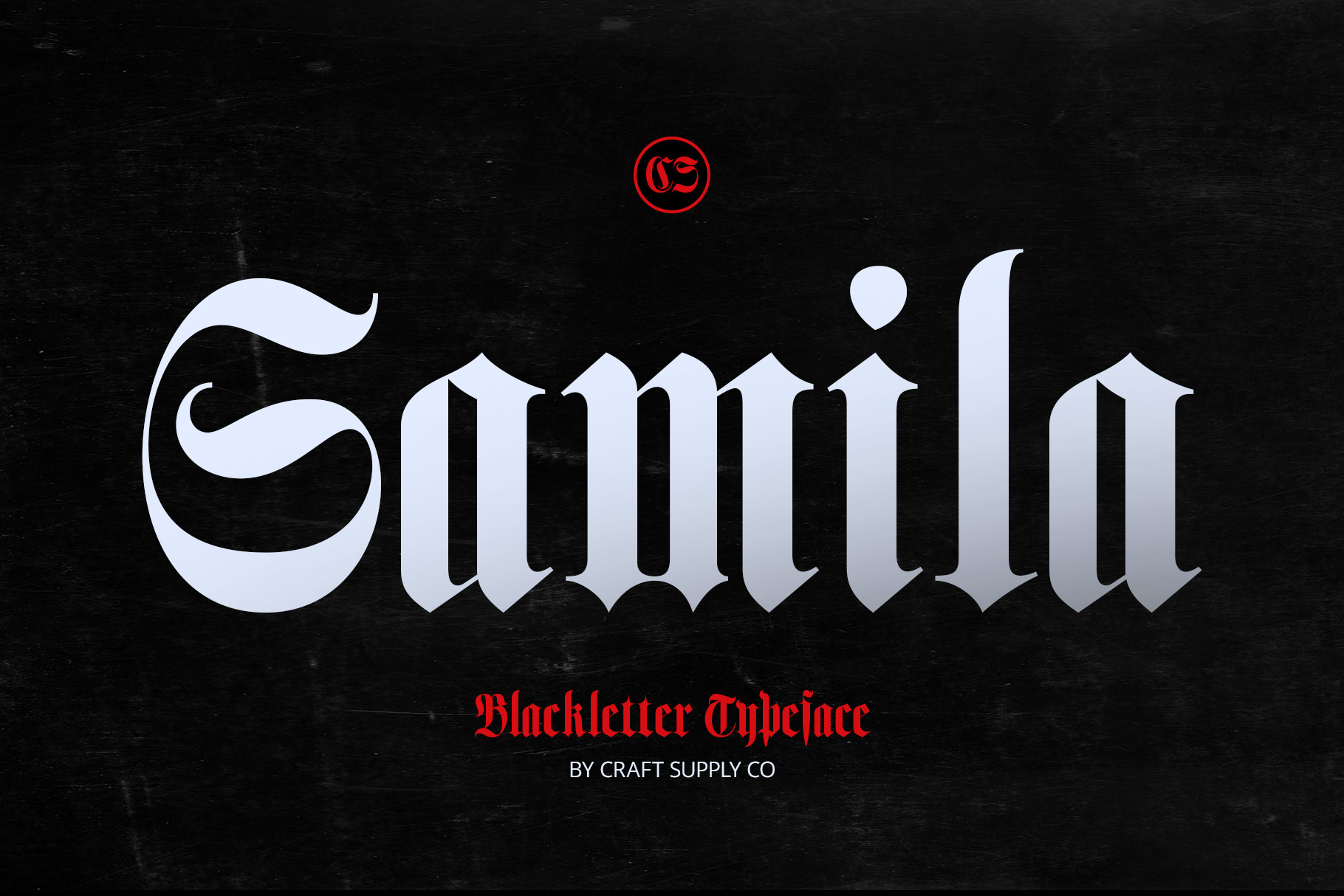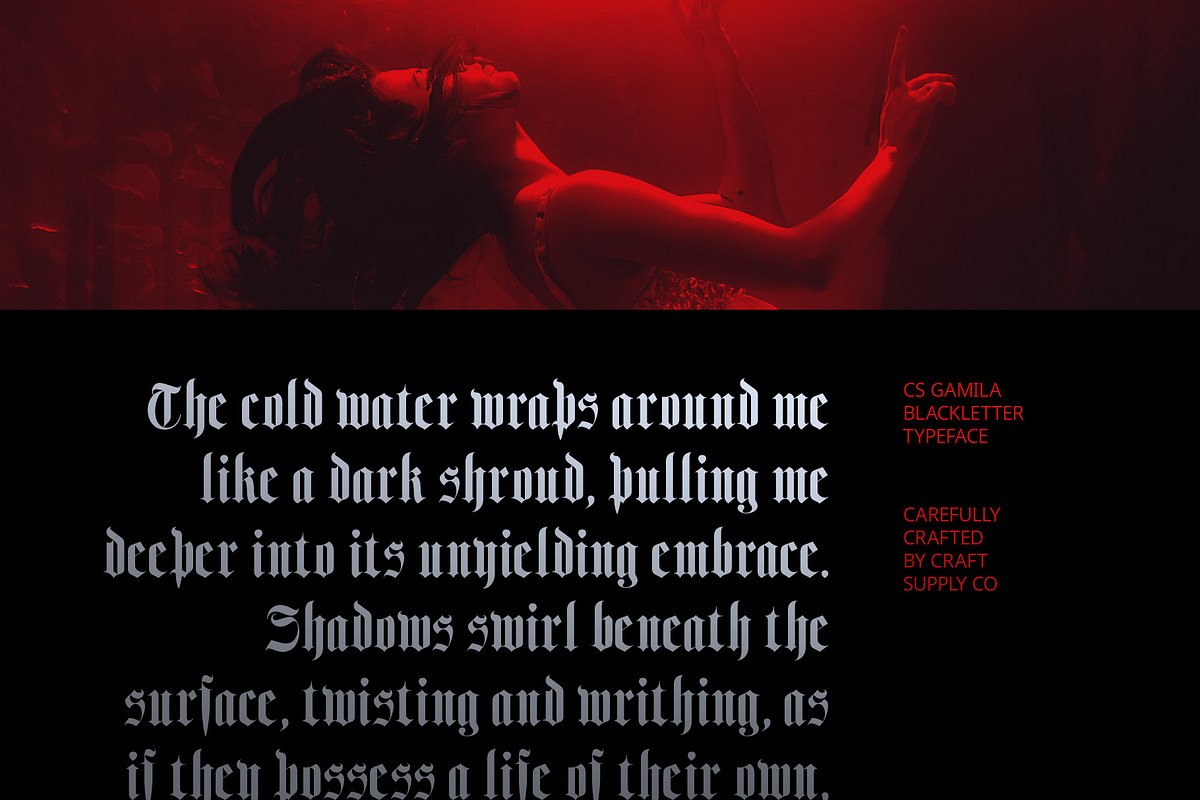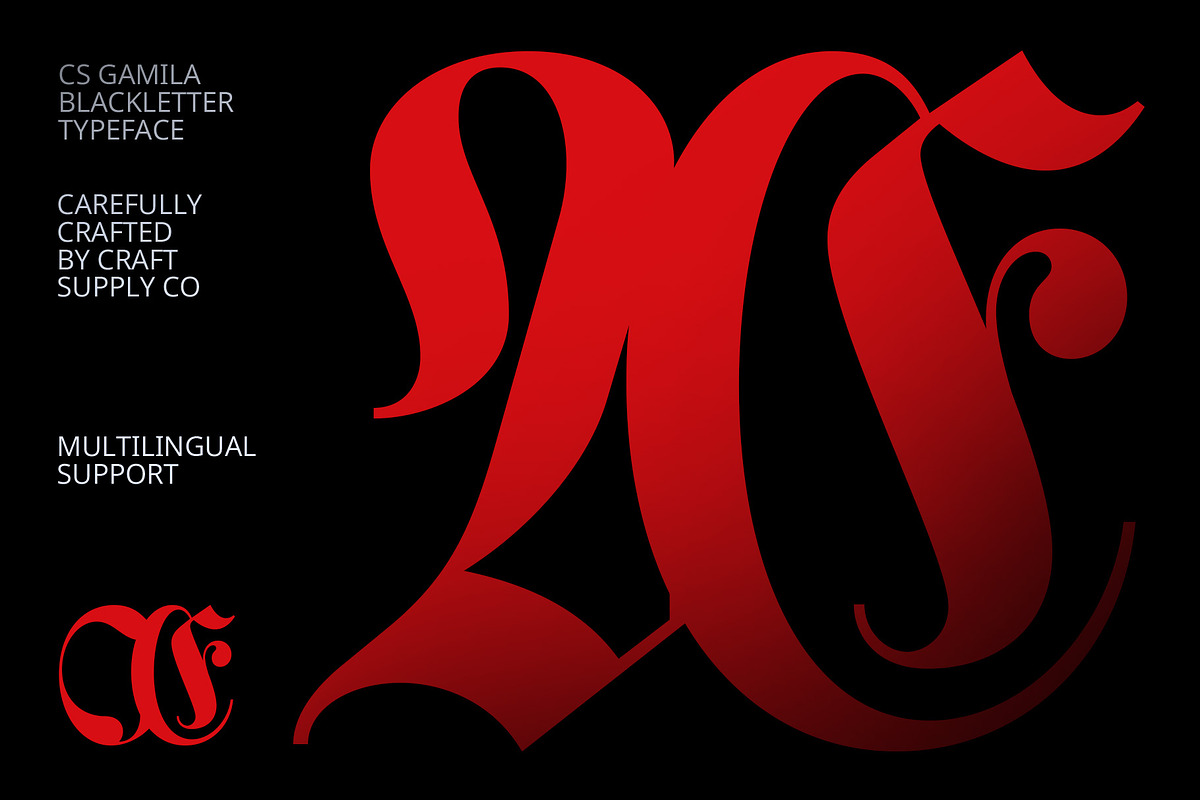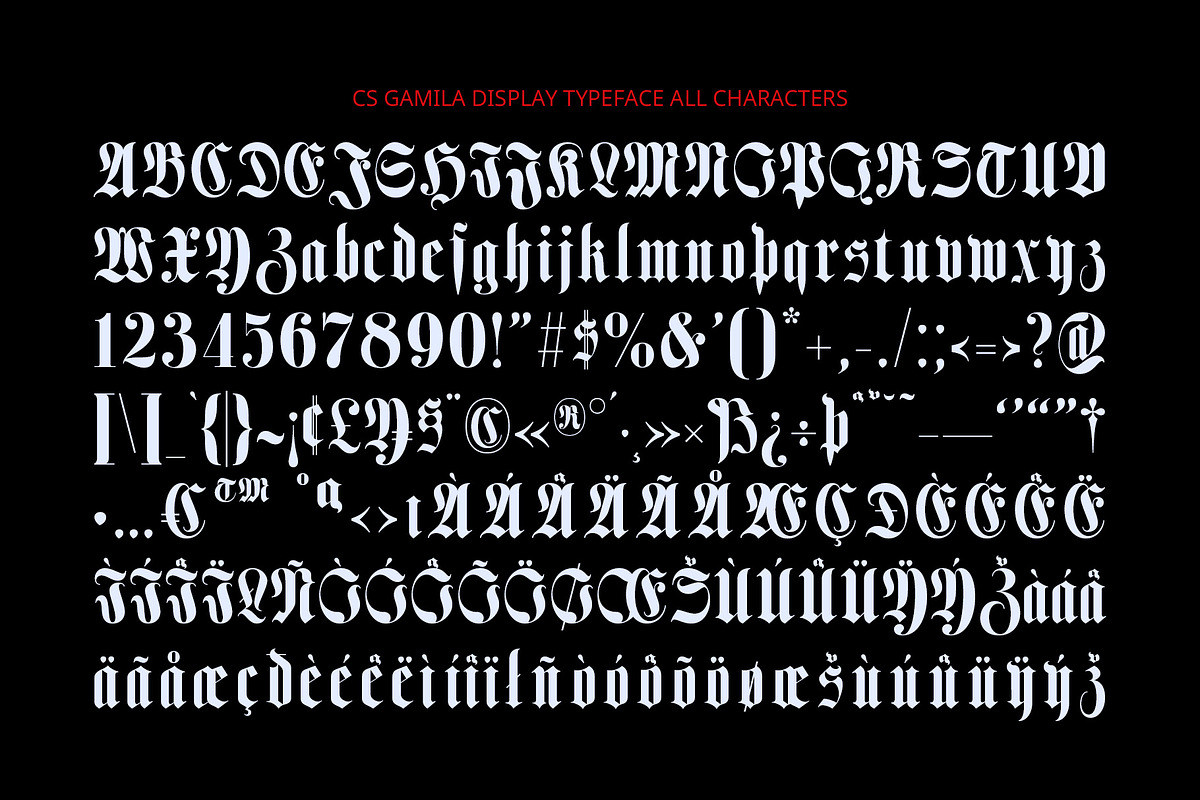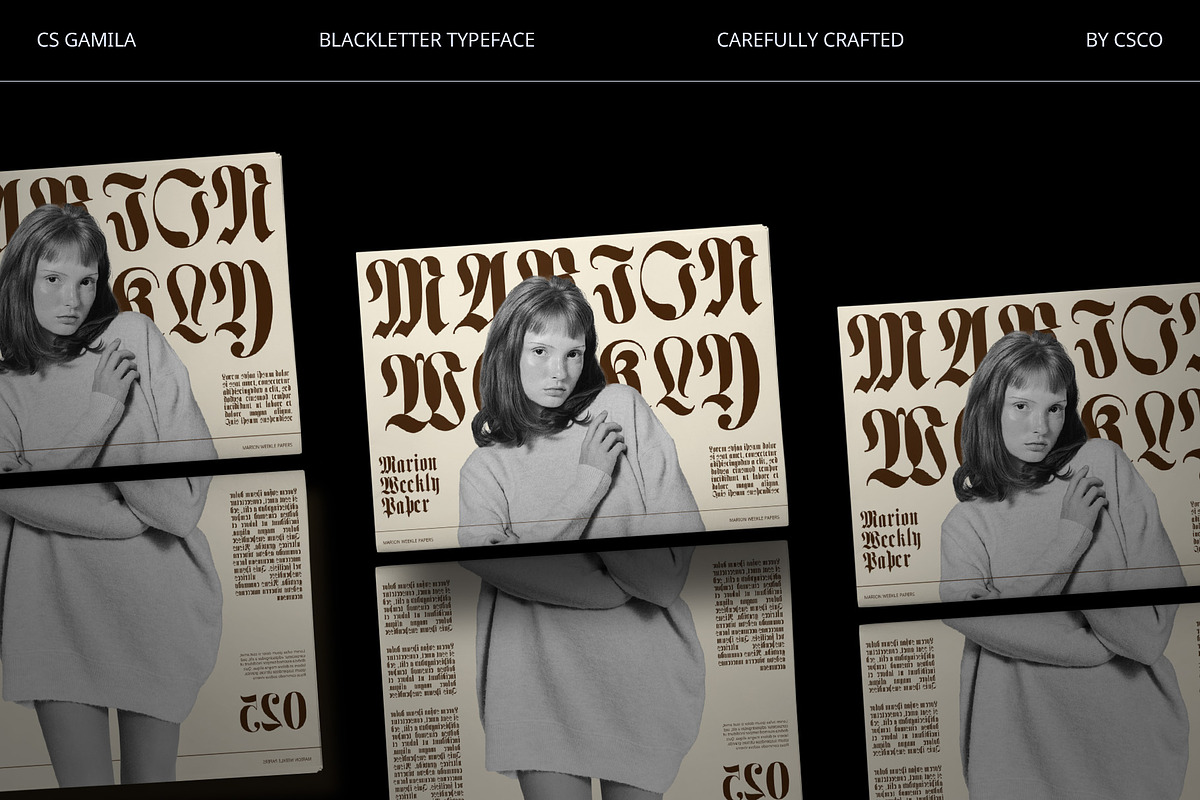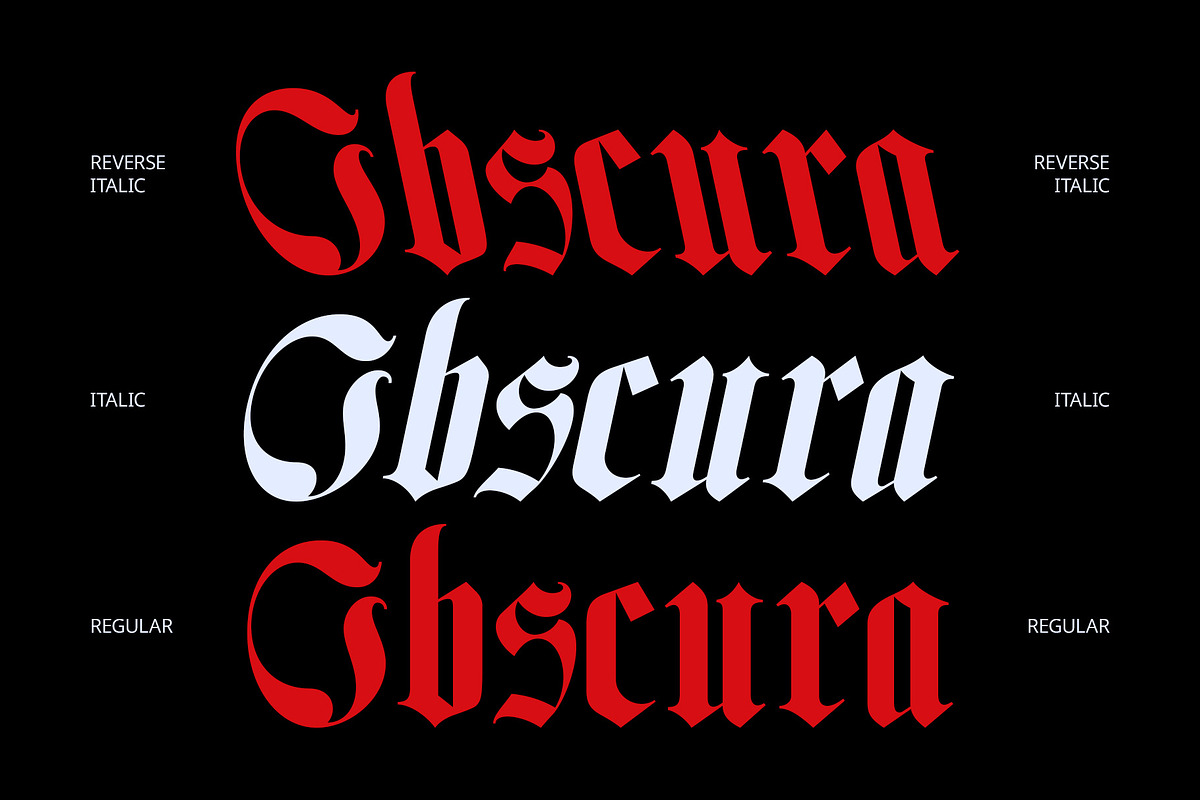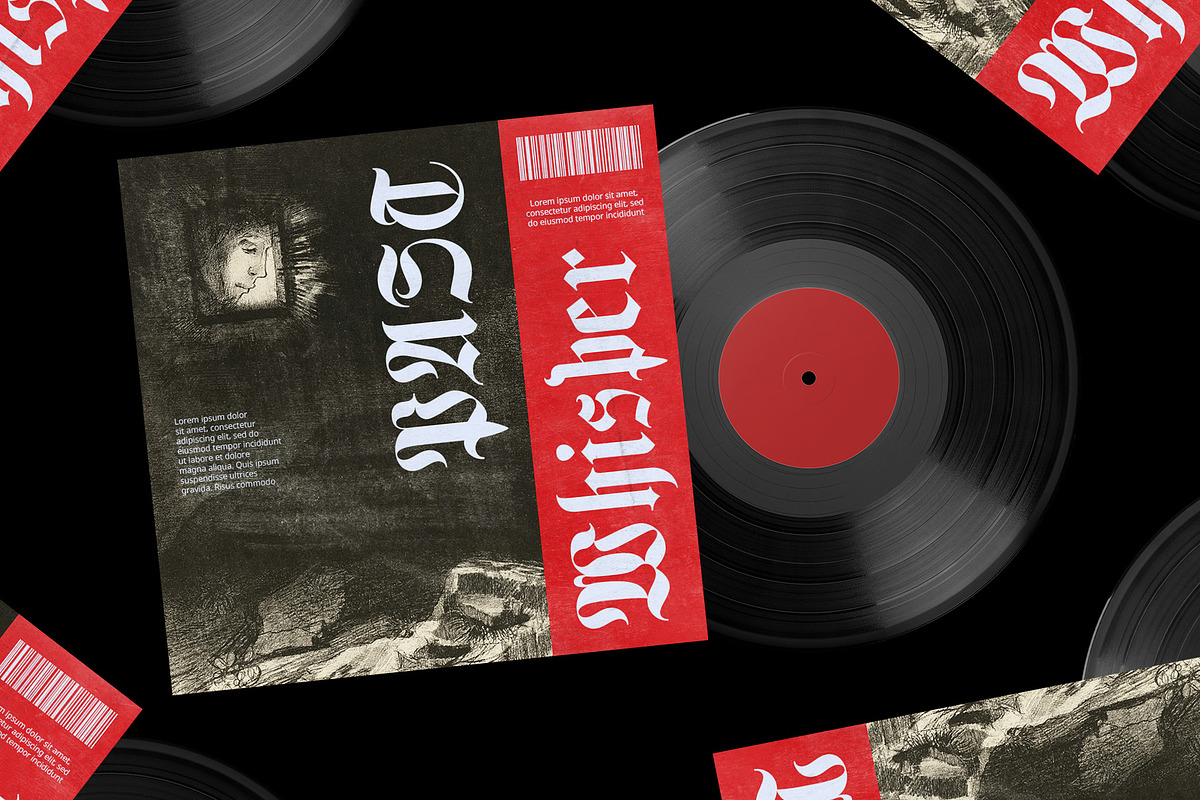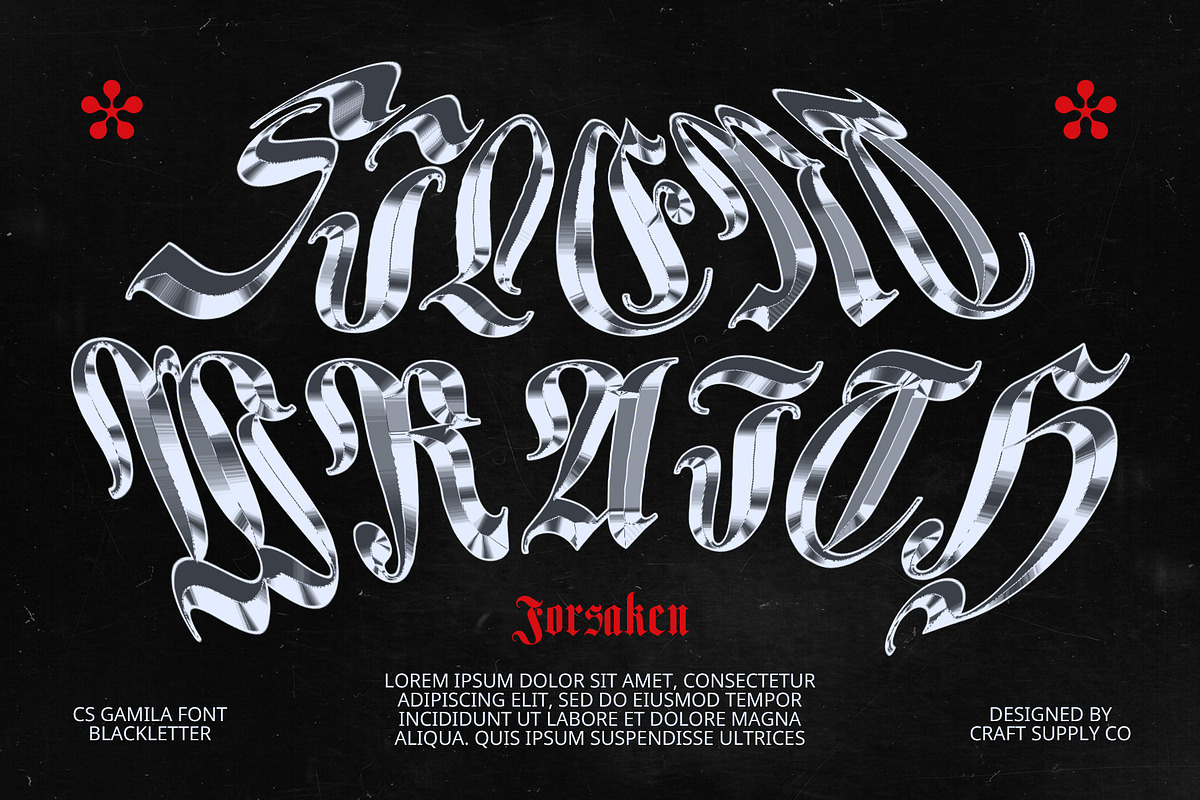
CS Gamila – Blackletter Font
CS Gamila – Blackletter Font: A Majestic Nod to Medieval Heritage
Historical Blackletter Style CS Gamila is a striking display font that draws inspiration from the bold, ornate script of medieval blackletter, offering an authentic and regal look. With its sharp, angular letters, upright forms, and intricate details, this font evokes the elegance of handwritten manuscripts and the artistry of old-world calligraphy. Its strong vertical lines and geometric precision reflect the timeless beauty of Gothic typography, creating a striking and memorable impression.
Rich in Heritage and Character The bold, traditional letterforms of CS Gamila make it perfect for projects that aim to convey a sense of history and sophistication. Its distinct gothic style adds a touch of gravitas to any design, whether it’s used in logos, posters, or artwork. This font’s historical appeal is ideal for projects that require a heritage-rich character, such as vintage branding or designs with a medieval influence.
Perfect for Traditional and Elegant Designs CS Gamila stands out in any design that seeks to evoke the past while maintaining a strong and dignified presence. Its detailed design makes it suitable for logos, posters, book covers, or artwork where a classic, historical aesthetic is desired. For projects that require a blend of elegance and boldness, this font is a timeless choice.
- CS Gamila Regular
- CS Gamila Italic
- CS Gamila Reverse Italic